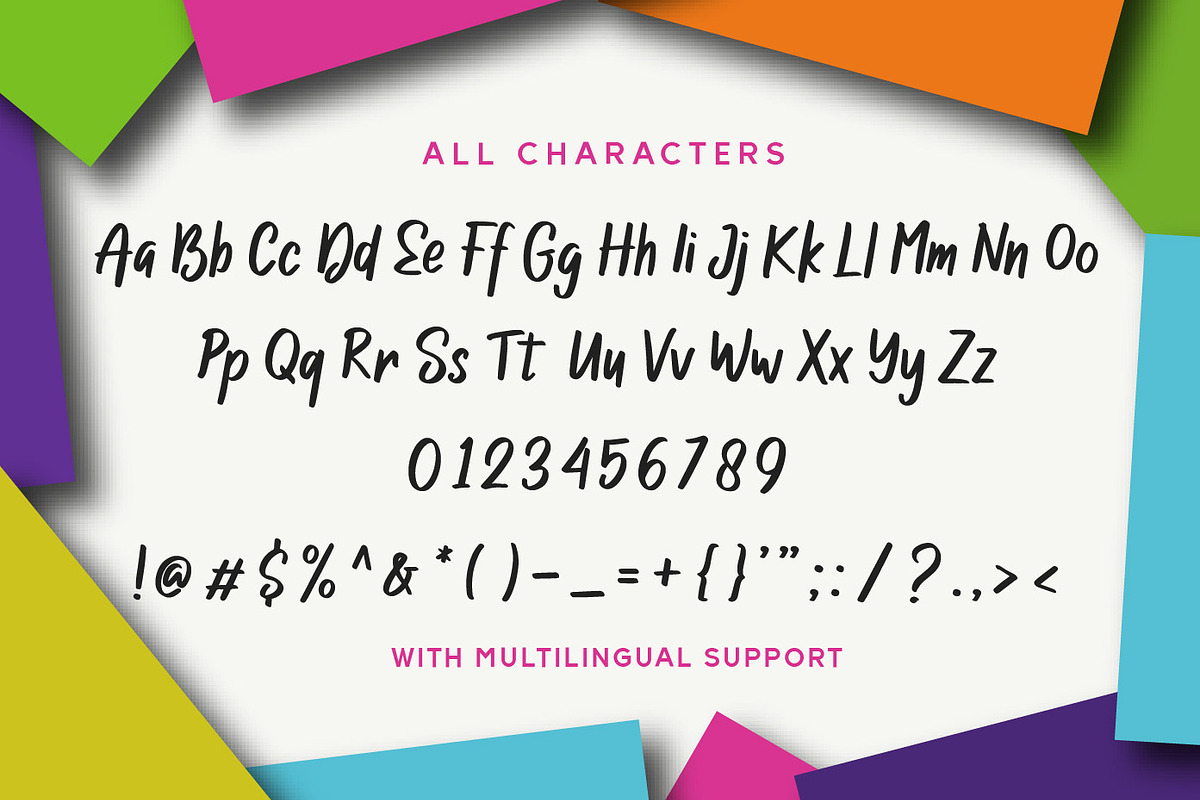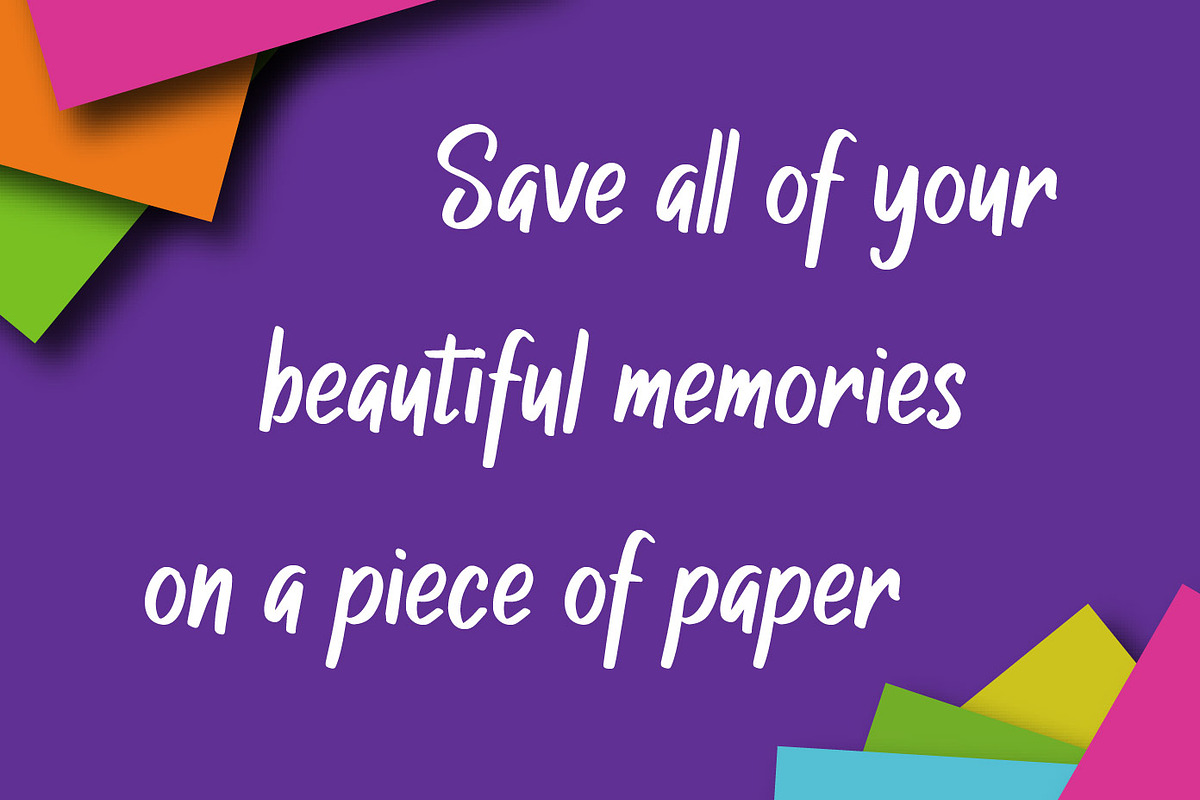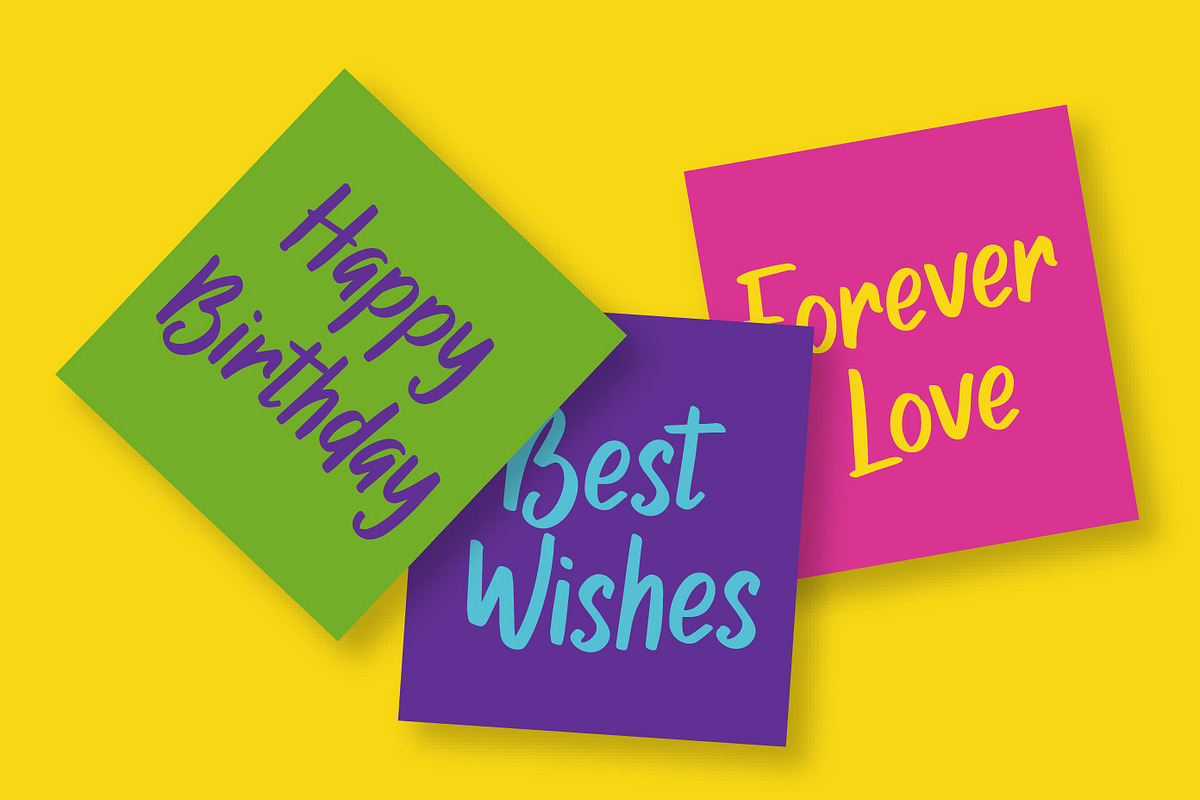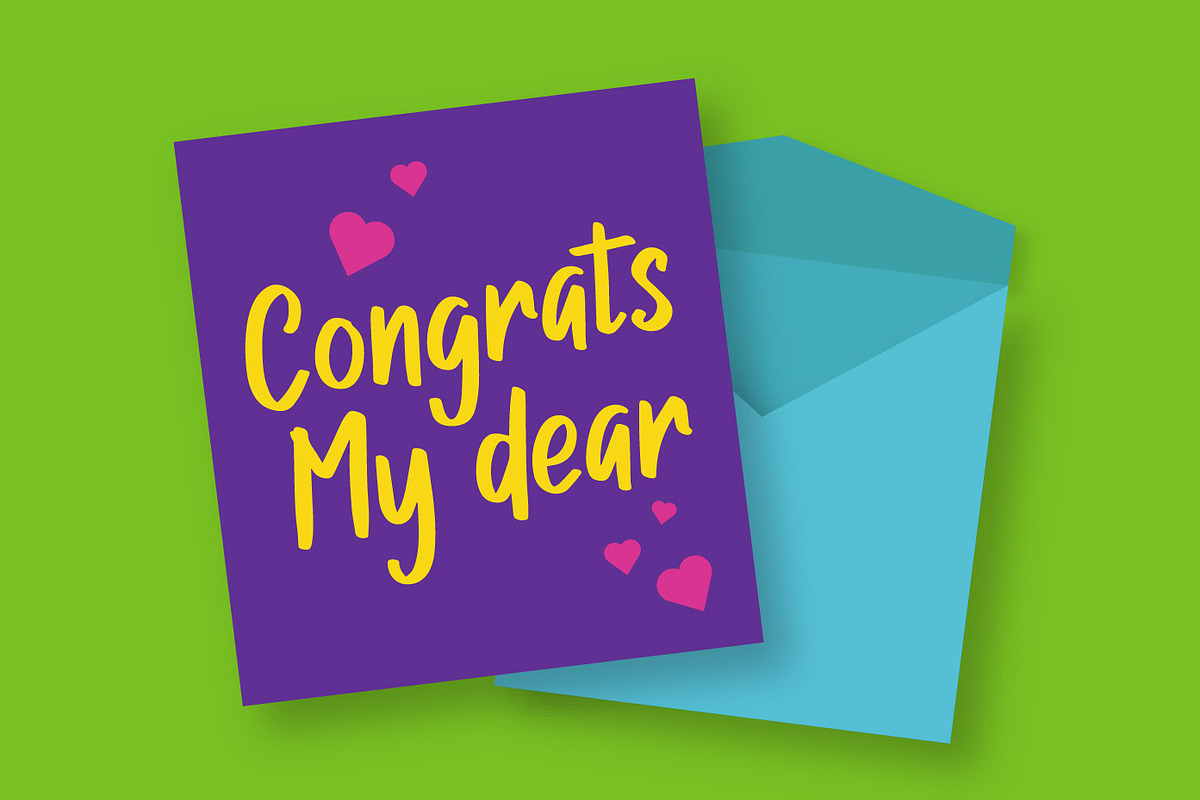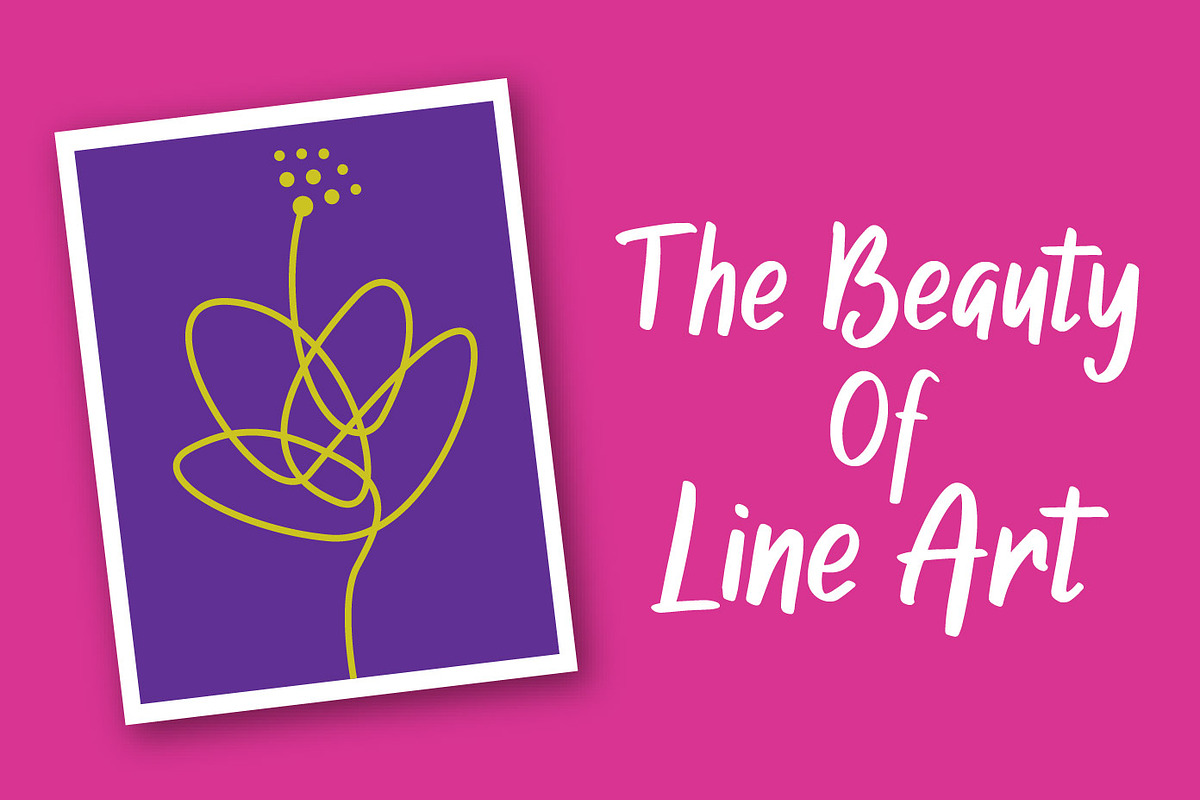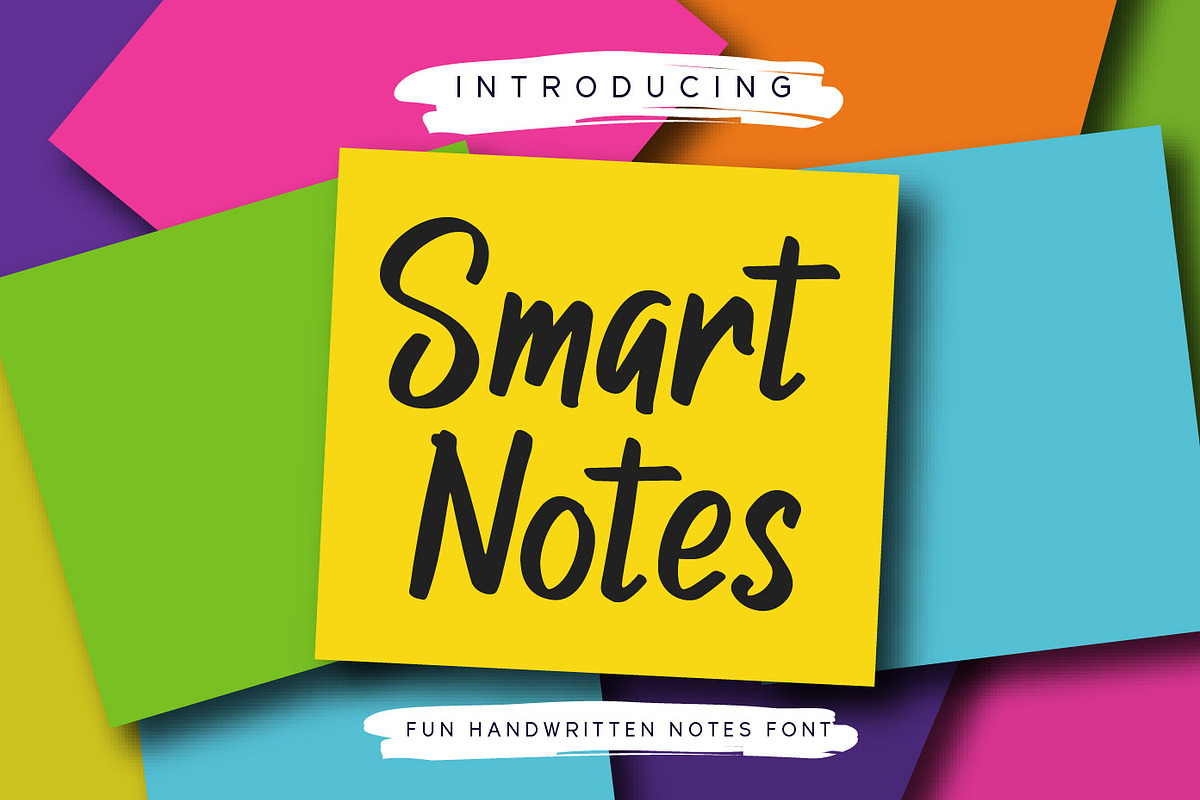
Smart Notes
Smart Notes is a hand drawn display typeface with writing notes style.
Smart notes is perfect for apparel, branding, logo, social media posts, advertisements, product packaging, product designs, label, and any projects that you work on.